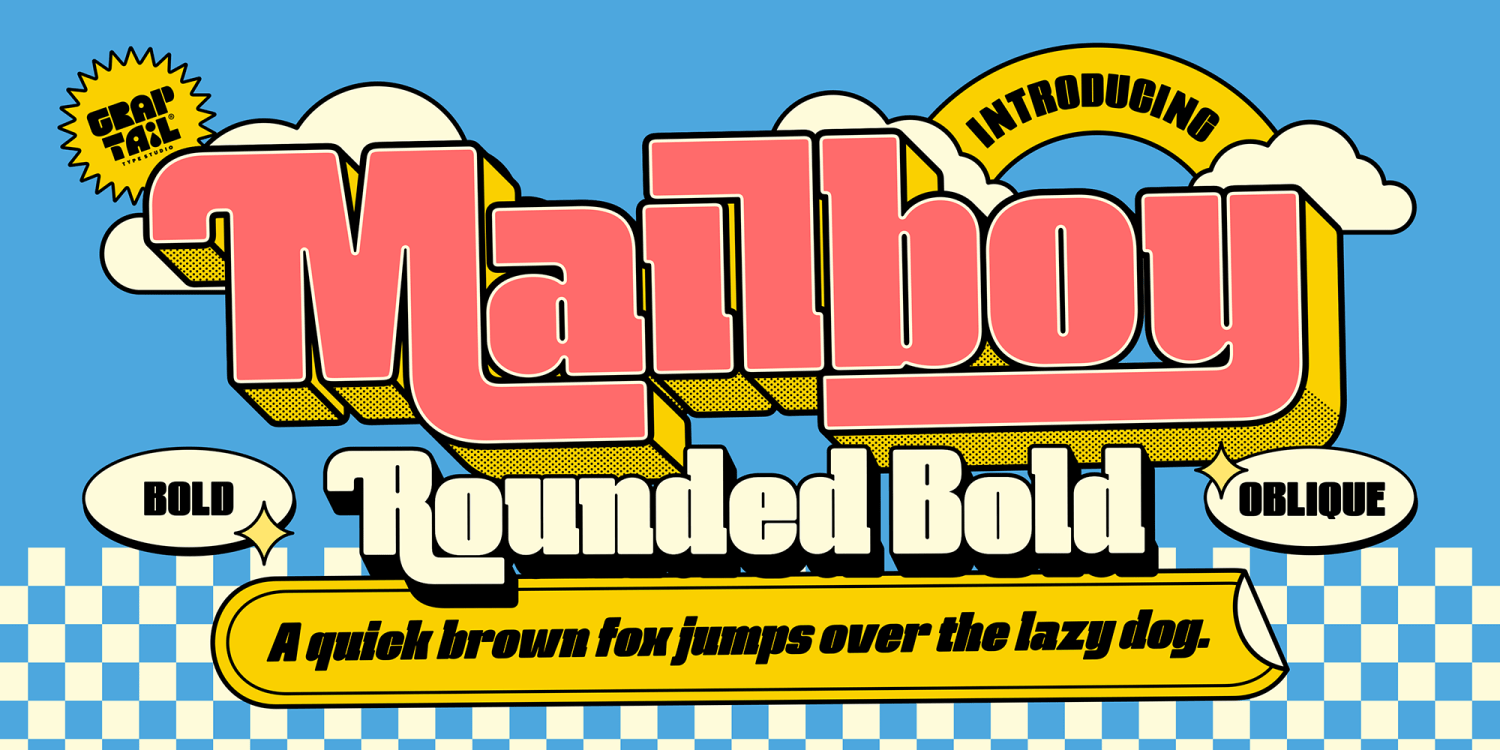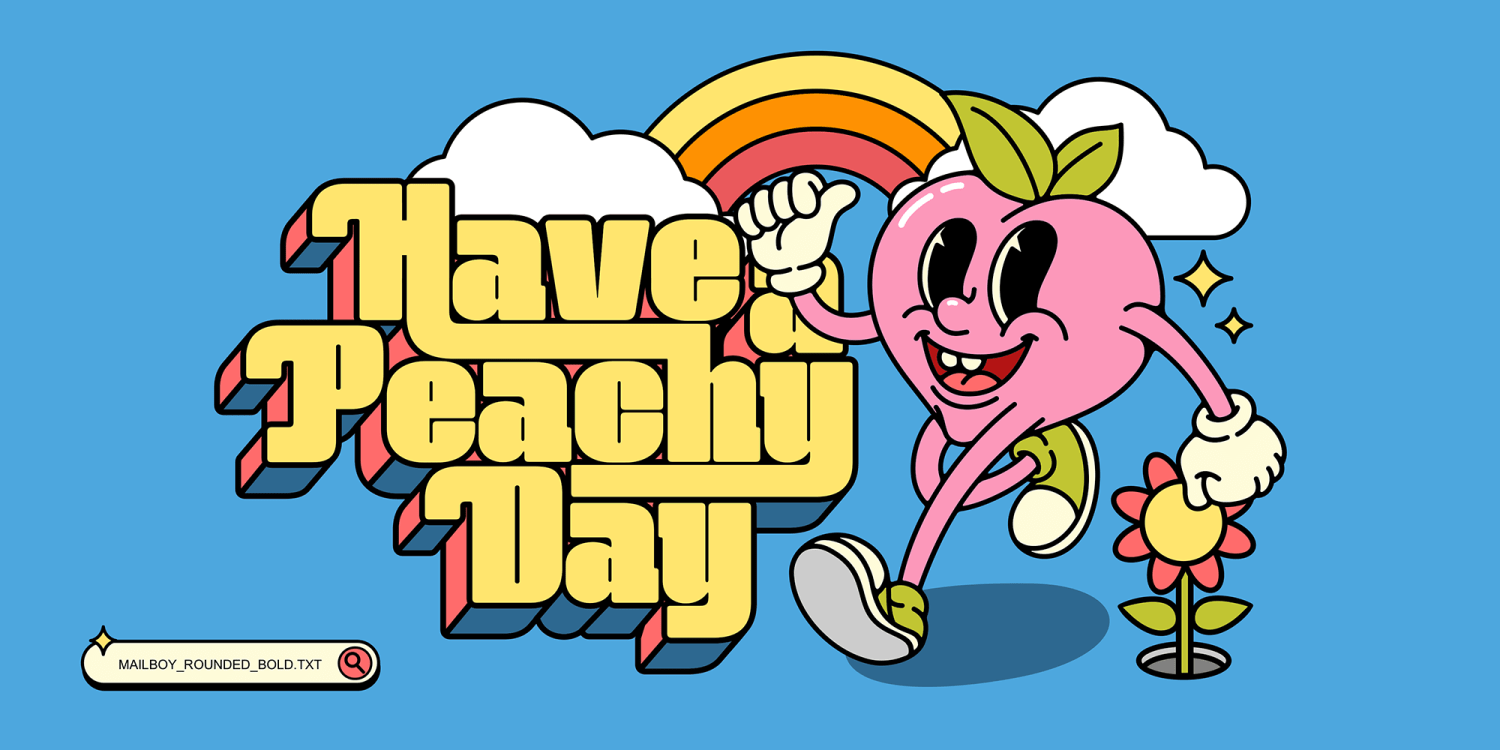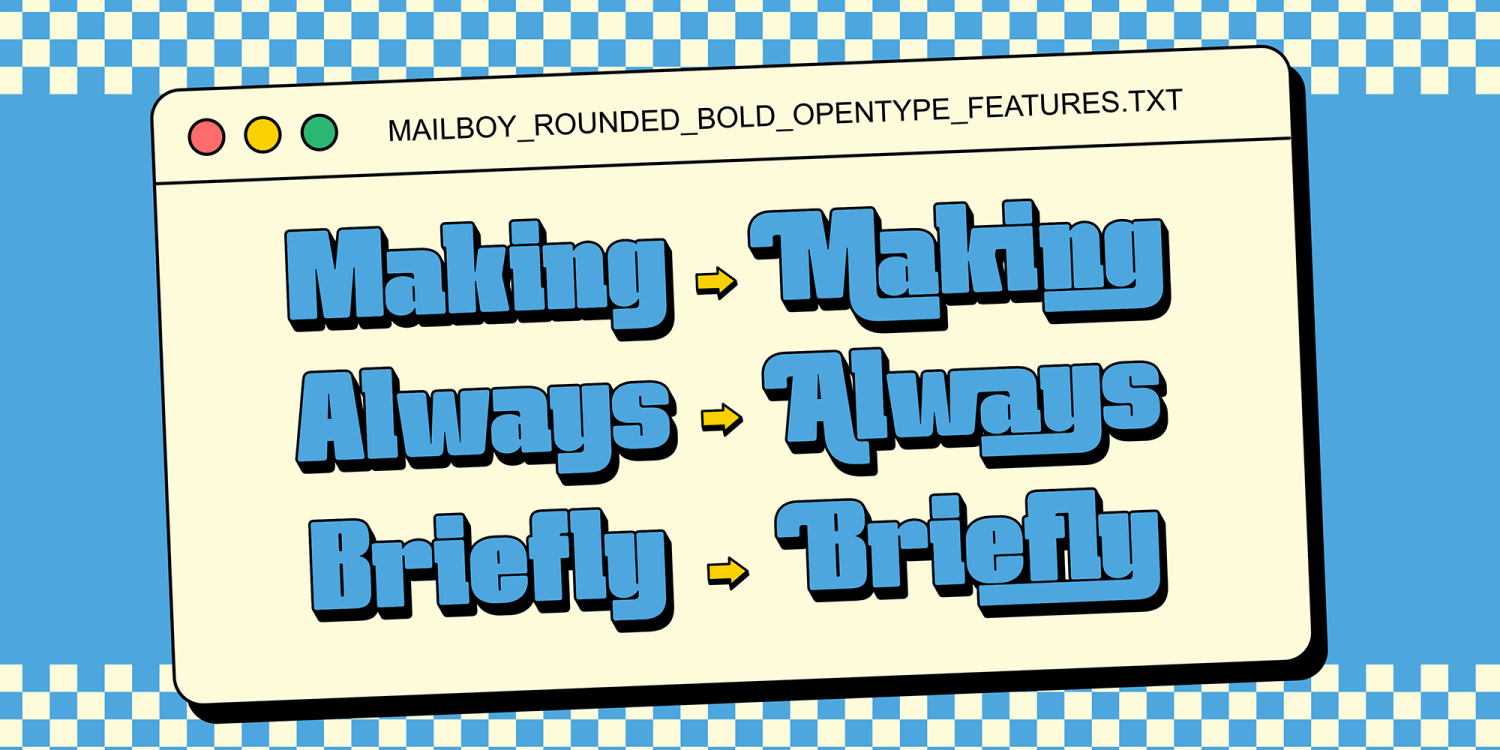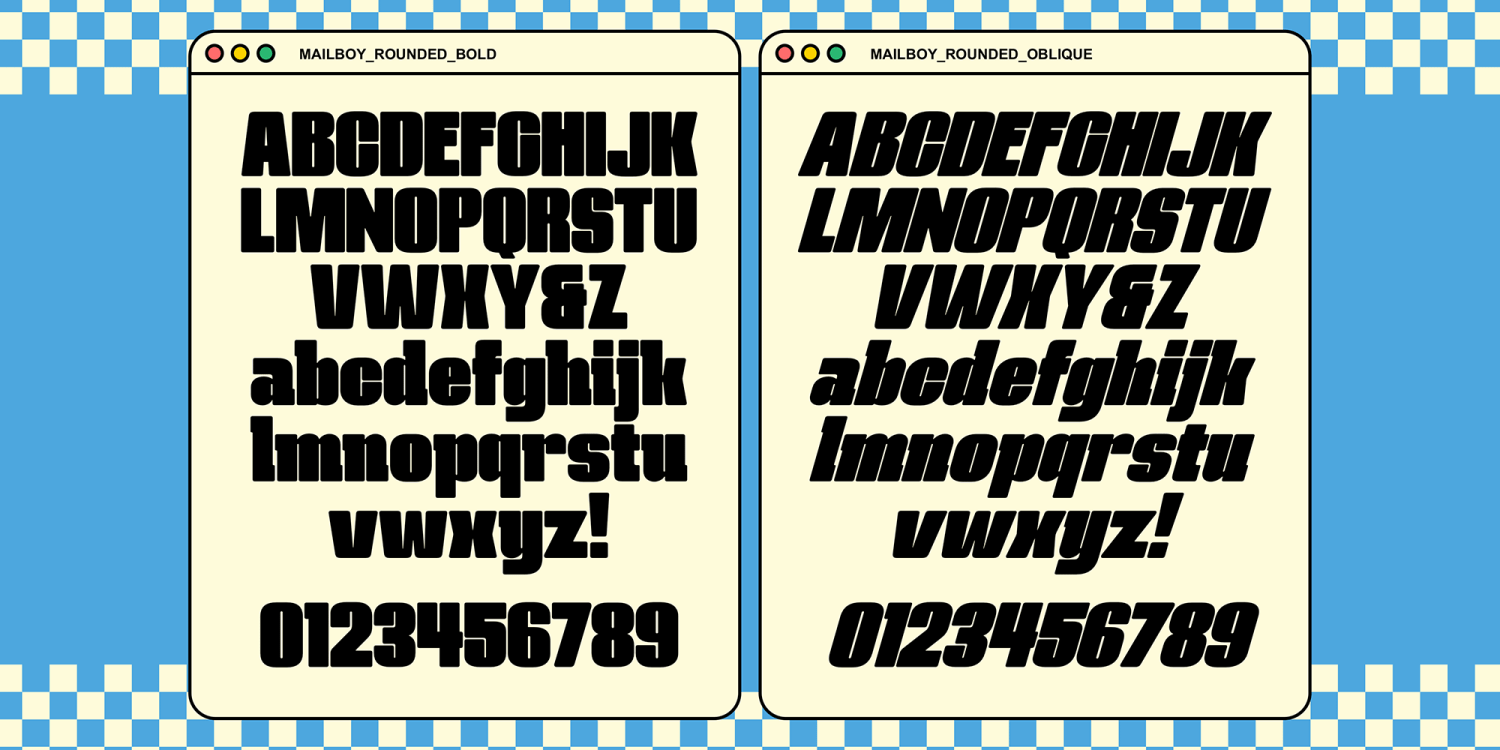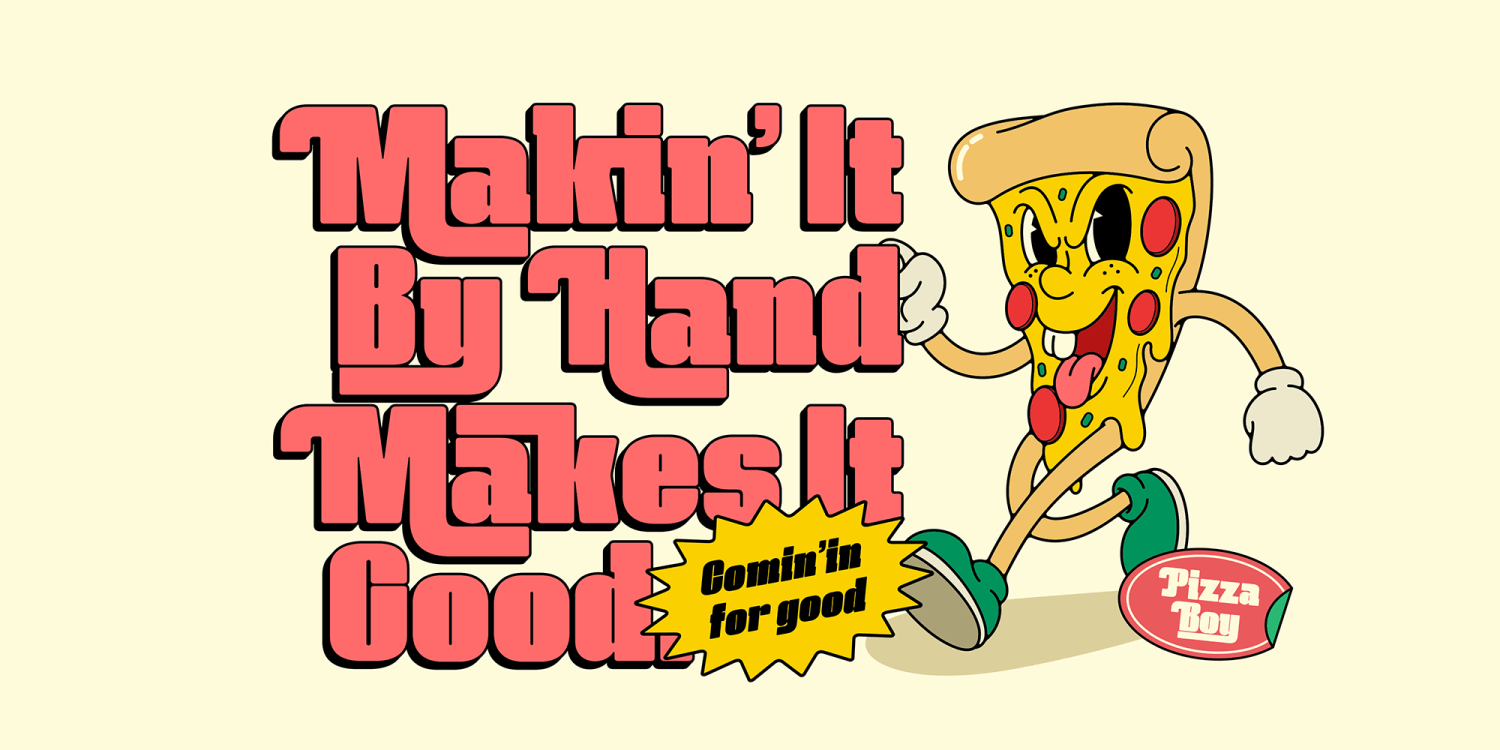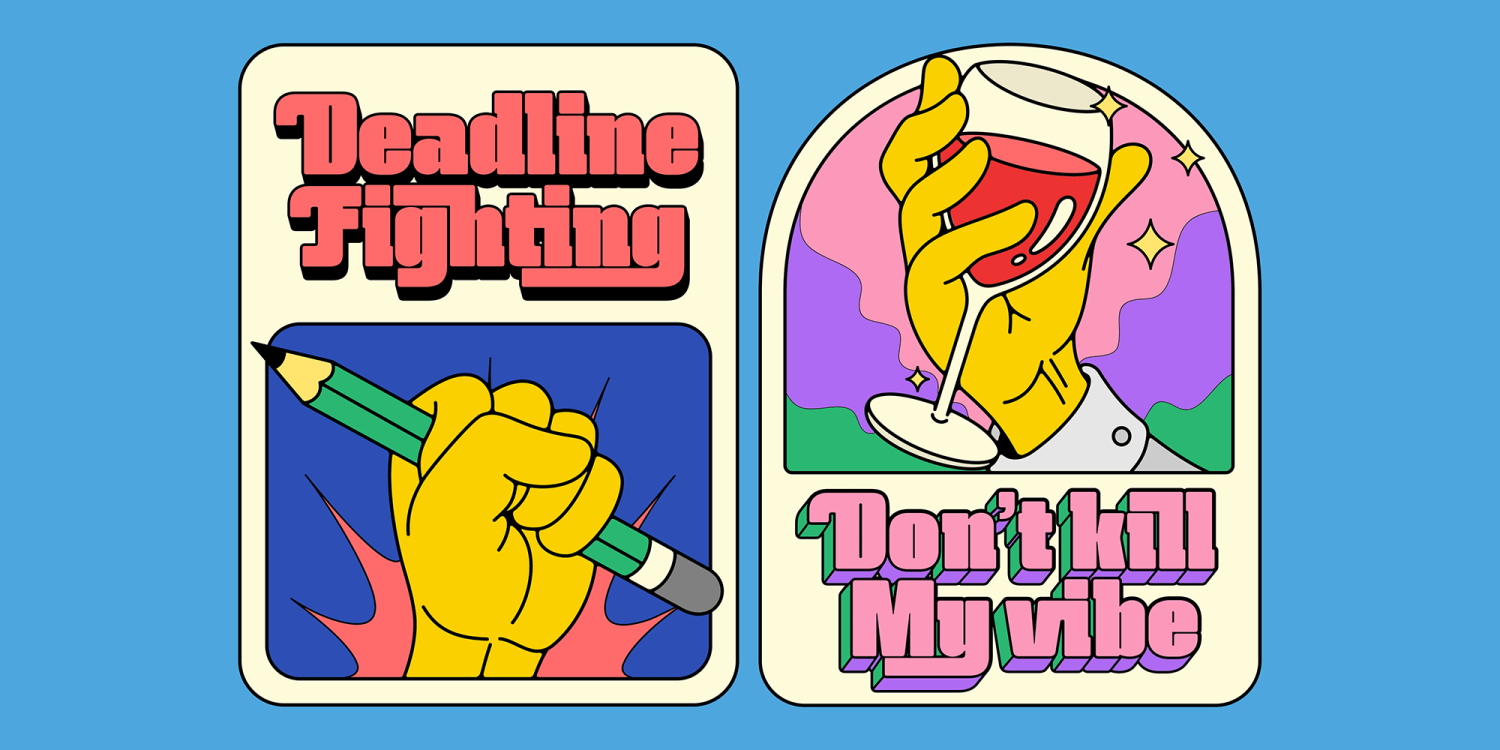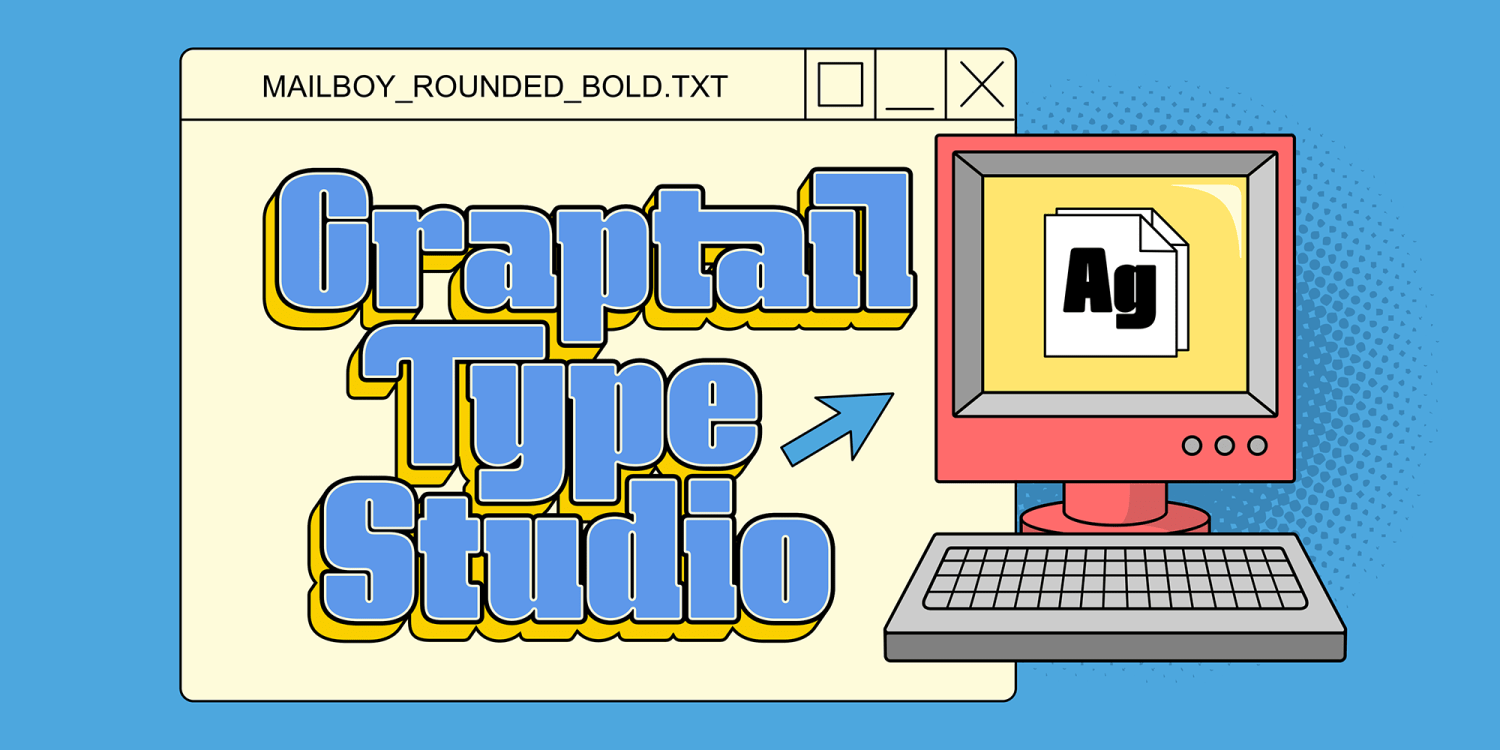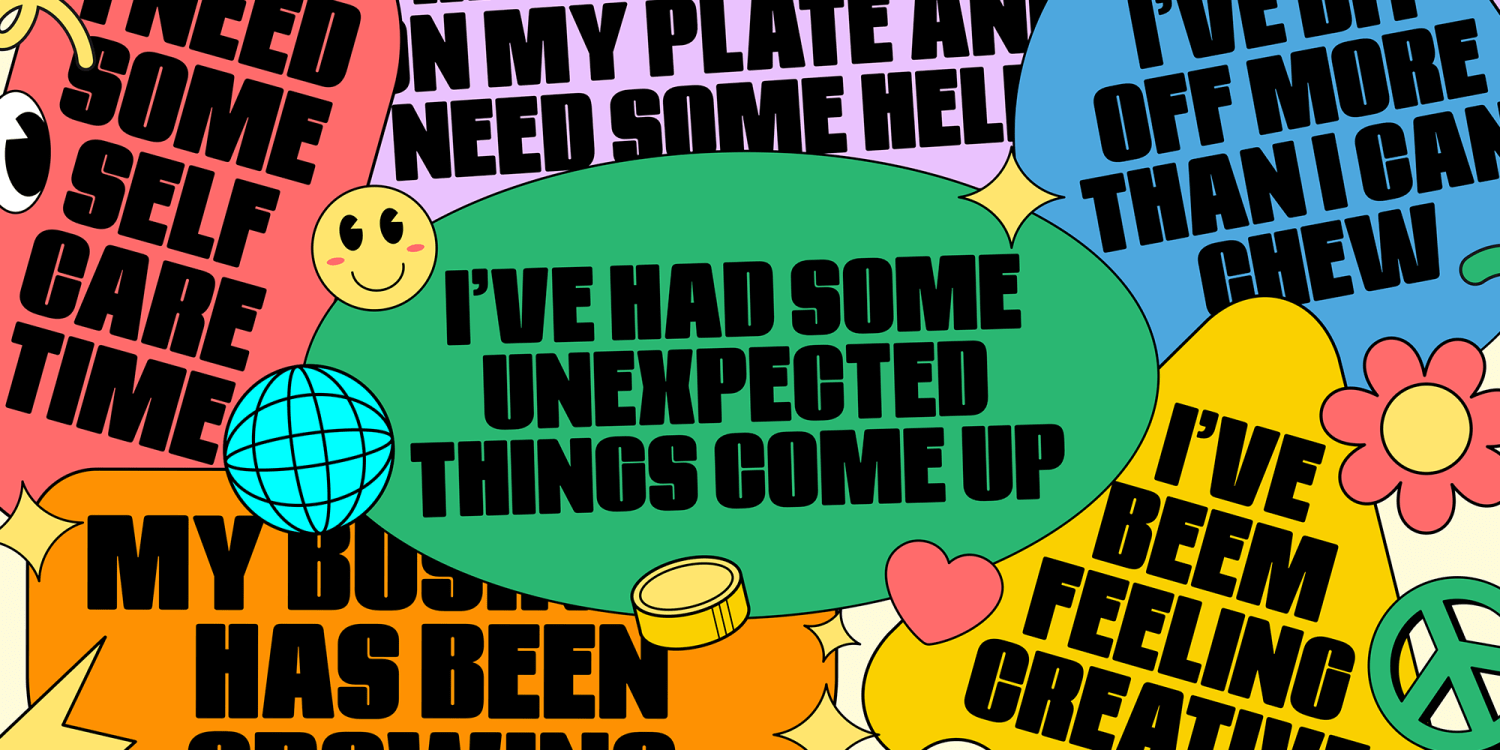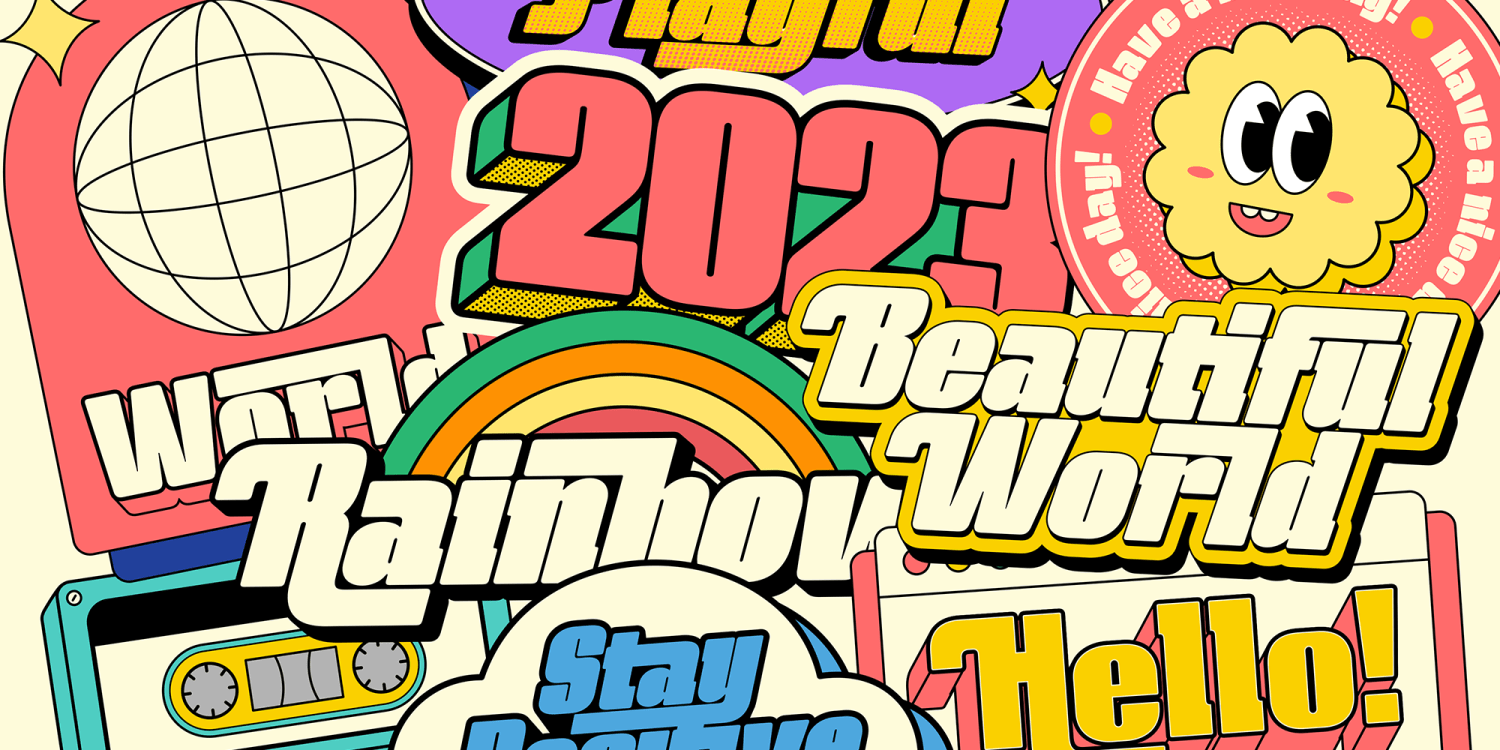
Mailboy
Font Family by Graptail
A Mailboy Font is a Nostalgic and Chunky typeface with a style that typically features a classic, timeless design that evokes nostalgic feelings. This type of font is often used to make a bold statement or give the text a more artistic or vintage feel. Nostalgia and Chunky fonts are often used in logos, posters, and titles to make them stand out and grab attention. It has 2 font styles, Bold and Oblique with alternates.